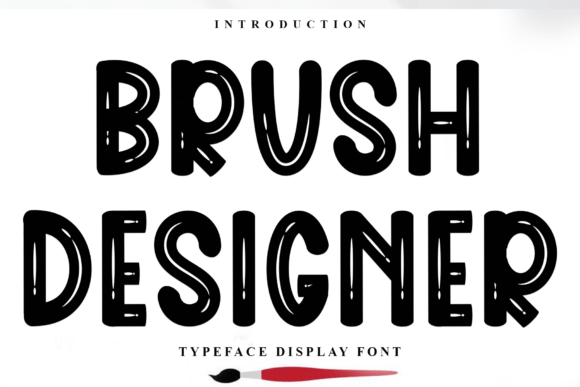
The Art of Hand-Painted Typography
Have you ever stared at a blank canvas, pen in hand, waiting for the perfect idea to strike? For many creatives, those moments of blank-page anxiety can be a catalyst for innovation. And sometimes, all it takes is the right tool to bring that vision to life. Enter the Brush Designer Font – a bold and artistic display font that captures the essence of hand-painted strokes and subtle texture.
With its creative, handcrafted feel, the Brush Designer Font is the perfect companion for designers looking to add an expressive, brush-made touch to their work. Whether it’s a poster, branding, packaging, or any design that requires a unique, artistic flair, this font is a valuable asset in any creative’s toolkit.
Brush Designer Font Key Features
- Font family: A unique, hand-painted font designed to evoke a sense of brushwork and artistic expression.
- Unique characteristics: Features a range of brush-like strokes and textures, giving it a distinctive, hand-crafted feel that sets it apart from other fonts.
- Font styles: Available in regular, italic, bold, and bold italic styles, providing a range of options for designers to choose from.
Designer Review: Brush Designer Font
I’ve had the chance to play around with the Brush Designer Font, and I’ve got some thoughts to share. ✨ First off, the font is super versatile – it comes in a variety of styles and weights, making it perfect for any design project. I love how the font’s brush-like strokes add a touch of organic feel to digital designs. ✨ It’s also incredibly easy to use, even for designers who aren’t super familiar with custom fonts.
Now, let’s talk about the not-so-great stuff. ⚠️ One of my main concerns is that the font can look a bit inconsistent across different devices and platforms. I’ve noticed that some characters might appear slightly off on certain screens. ⚠️ Additionally, the font’s brush strokes can sometimes be a bit too bold, making it look more like a handwriting font than a sophisticated brush script.
Overall, I think Brush Designer Font is a great addition to any designer’s toolkit. It’s perfect for projects that need a bit of personality and whimsy. Just be aware of the potential inconsistencies and take some time to fine-tune your design to get the best results.
- Super versatile with multiple styles and weights
- Easy to use, even for designers without custom font experience
- Unique brush-like strokes add an organic feel
- May appear inconsistent across devices and platforms
- Brush strokes can be too bold in some instances
Brush Designer Font is ideal for creating unique, hand-drawn text effects in Canva.
Brush Designer Font is great for adding a touch of elegance to your presentations and documents in PowerPoint and Word.
Brush Designer Font is ideal for:
- Creating unique, hand-drawn text effects.
- Adding a personal touch to designs.
- Creating elegant, handwritten text styles.
Experiment with Brush Designer Font to find the perfect look for your next design project.